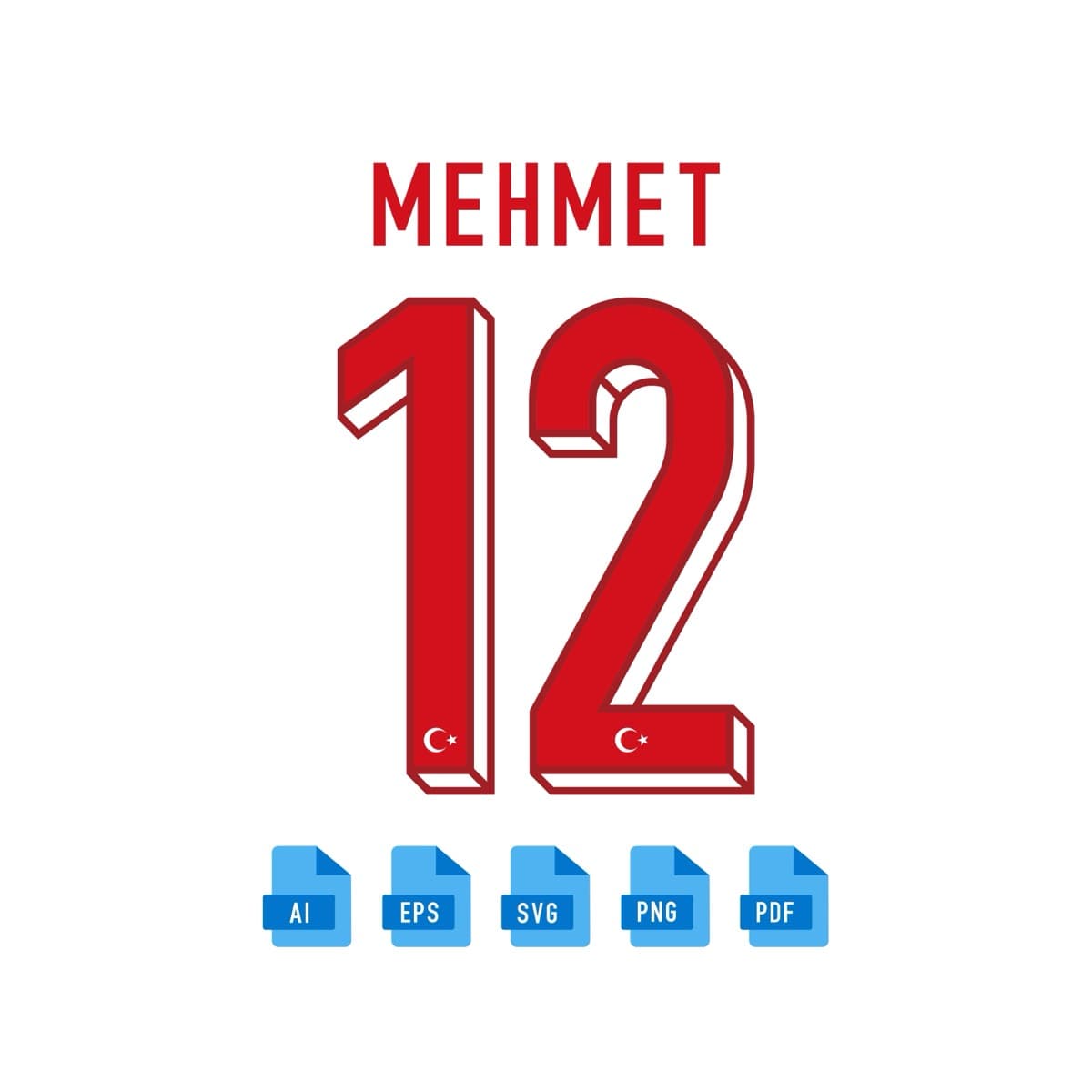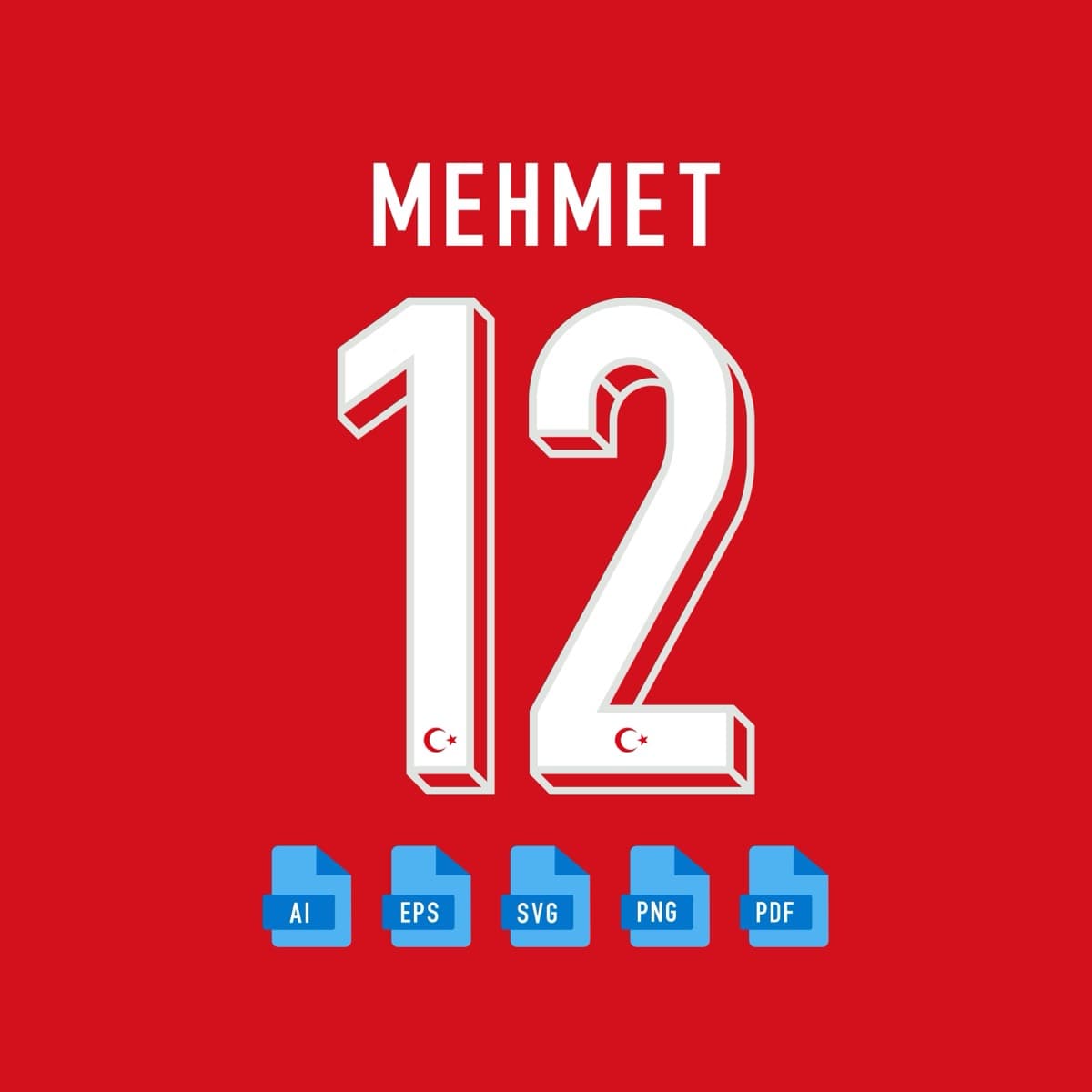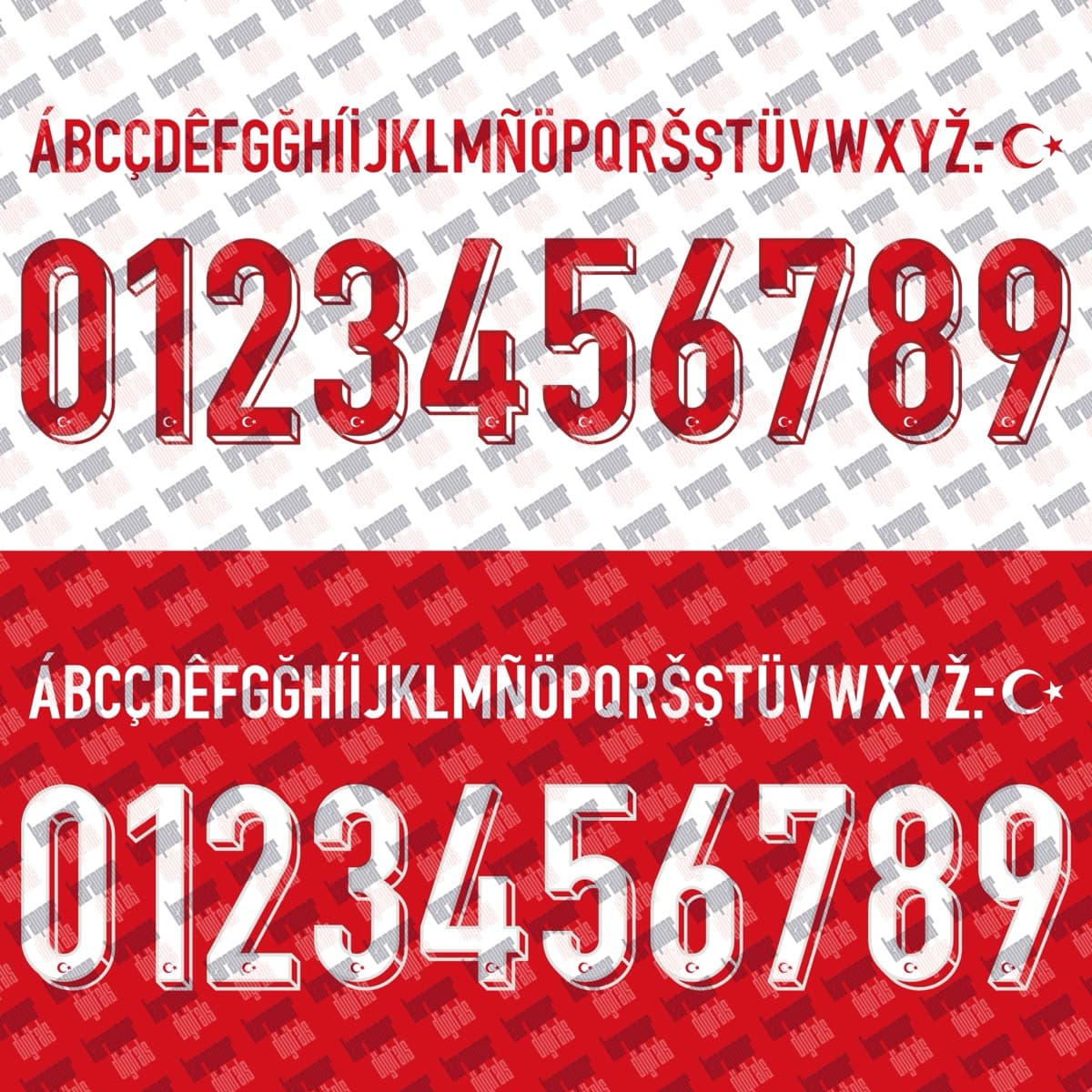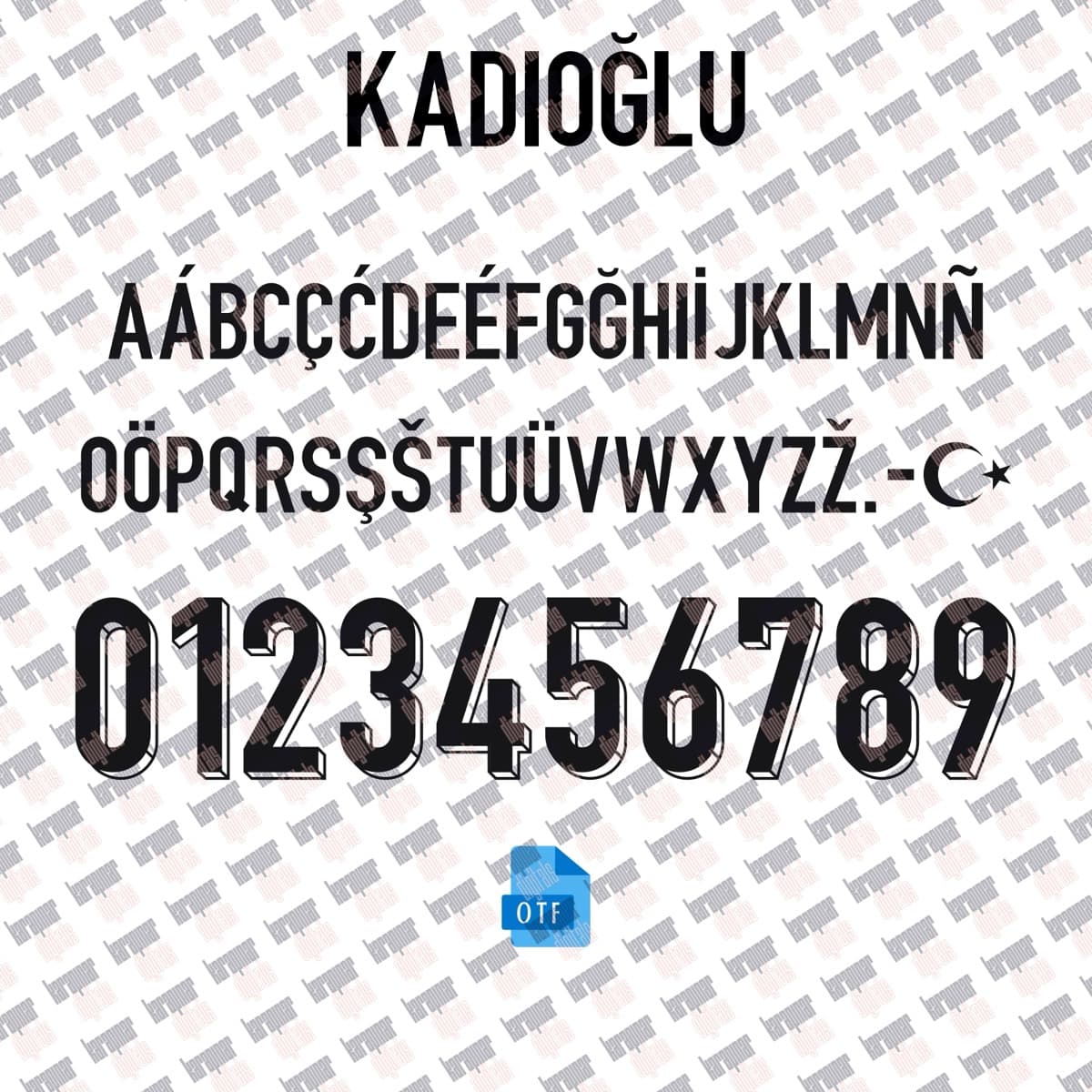
Türkiye EURO 2024
Türkiye National Team · 2024
Türkiye EURO 2024
A set inspired by the Türkiye National Team 2024 jersey typography, with a name and number system redrawn for print and screen. Original curves, consistent weight and a complete 0–9 numeral family.